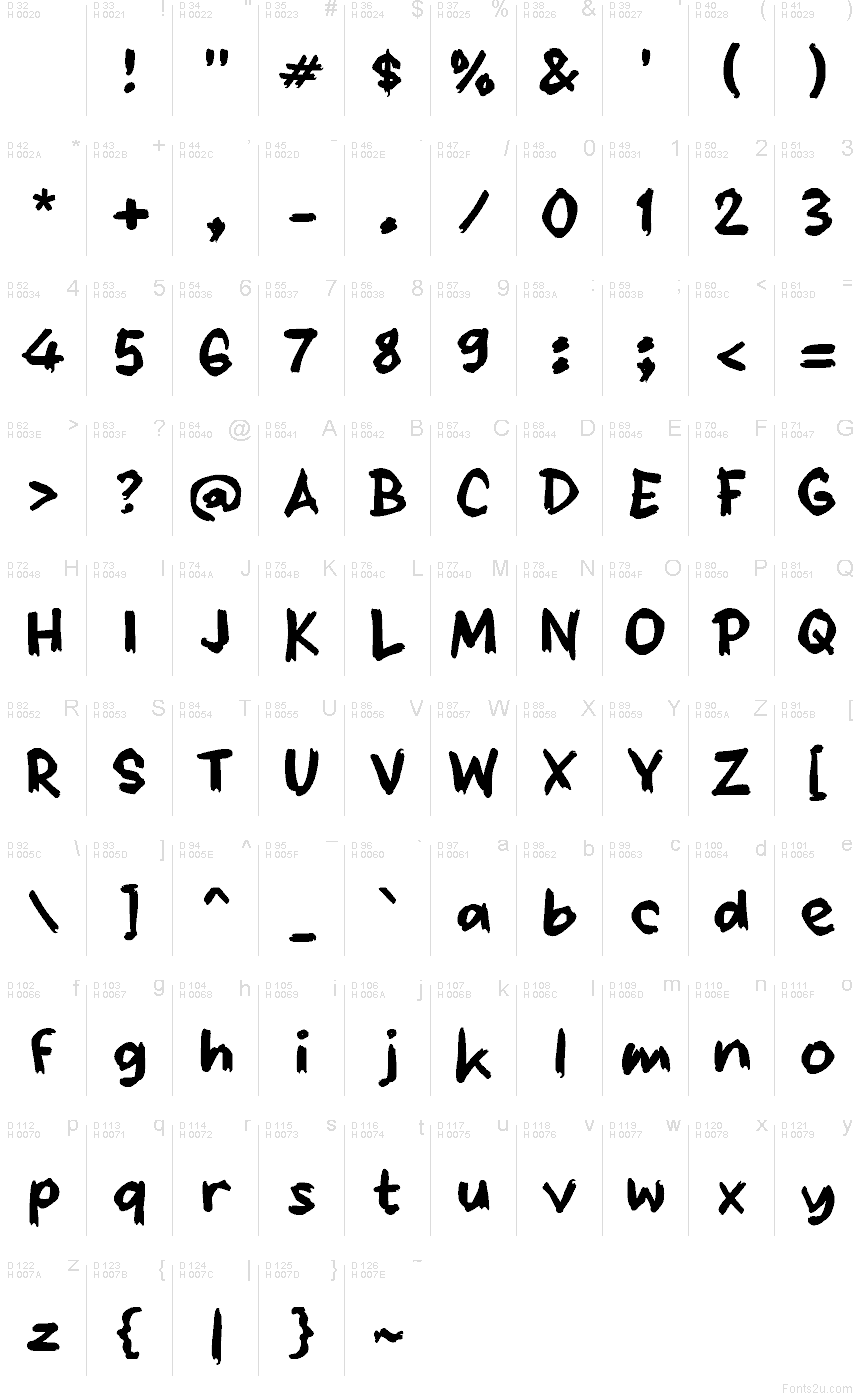
Obliga
Obliga font by wep is a free trash script typeface that looks like it was hacked out with a fat, half-dry marker on a warehouse wall. The letters are chunky, ragged, and slightly wobbly, with ink-blot edges that feel raw and unapologetically handmade. There’s a strong, punchy rhythm to the strokes, so even a single word lands with the energy of a shouted tag or a loud flyer headline.
Using Obliga, you can push attitude into gig posters, zines, skateboard graphics, streetwear branding, protest signs, and bold social media titles. This free font works best big and loud, where the rough contours and splattered texture can really show. Pair Obliga with a clean, narrow sans serif for body text to keep layouts readable while letting the script bring all the noise and grit.